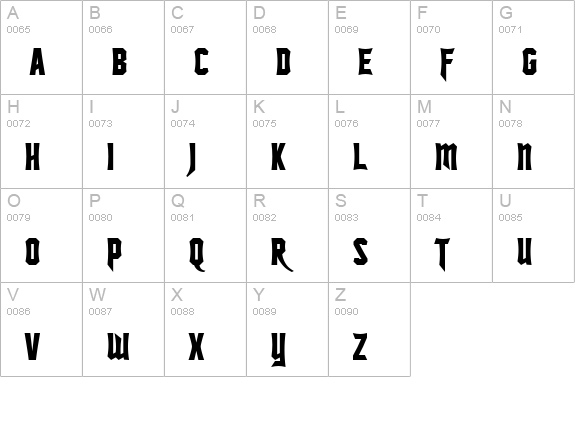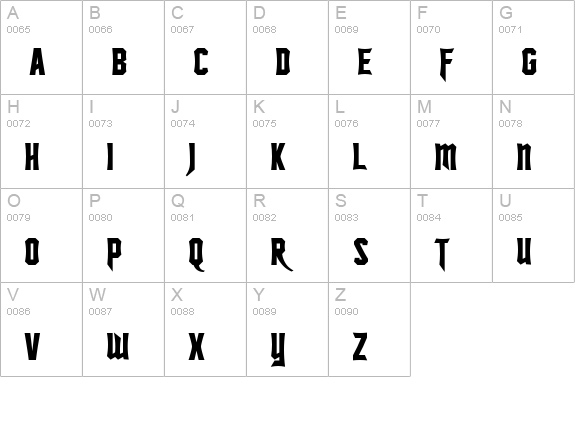
SF Ironsides Bold Font Details
SF Ironsides Bold is a strong, high-contrast variant in the SF typeface family \xE2\x80\x94 well suited to headlines, attention-grabbing titles, and strong calls-to-action.
SF Ironsides Bold is a stunning display font that effortlessly combines boldness and elegance. It exudes a sense of strength and power, making it perfect for attention-grabbing headlines, logos, and branding materials. With its strong and solid letterforms, this font commands attention and leaves a lasting impression. What sets SF Ironsides Bold apart is that it is not only a visually striking font, but it is also freely available to download at FontsMarket.com. This means that designers, creatives, and enthusiasts can easily access and utilize this remarkable font without any cost. Whether you're working on personal projects, professional designs, or commercial endeavors, SF Ironsides Bold offers a valuable resource that doesn't break the bank. The versatility of SF Ironsides Bold is another aspect worth mentioning. Its bold and assertive nature makes it ideal for a variety of design projects, ranging from posters and advertisements to website headers and product packaging. The clean lines and sharp edges contribute to its modern appeal, while the bold weight ensures maximum visibility and impact. Furthermore, SF Ironsides Bold is designed with utmost precision and attention to detail. Every curve and stroke is carefully crafted to create a harmonious balance between aesthetics and legibility. This ensures that your message is delivered with clarity and style, even in the most demanding design scenarios. Whether you're a seasoned designer or just starting out, SF Ironsides Bold is a font that will undoubtedly elevate your projects to new heights. Its boldness, elegance, and availability make it a must-have in every designer's toolkit. So why wait? Head over to FontsMarket.com and download SF Ironsides Bold today and unlock the limitless possibilities it offers.